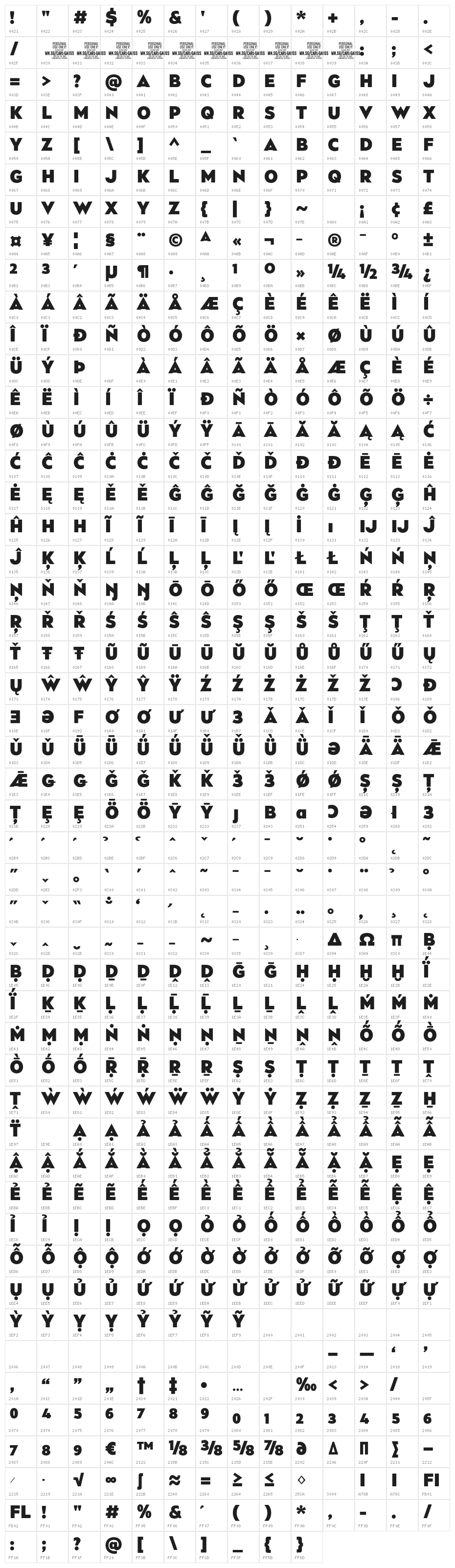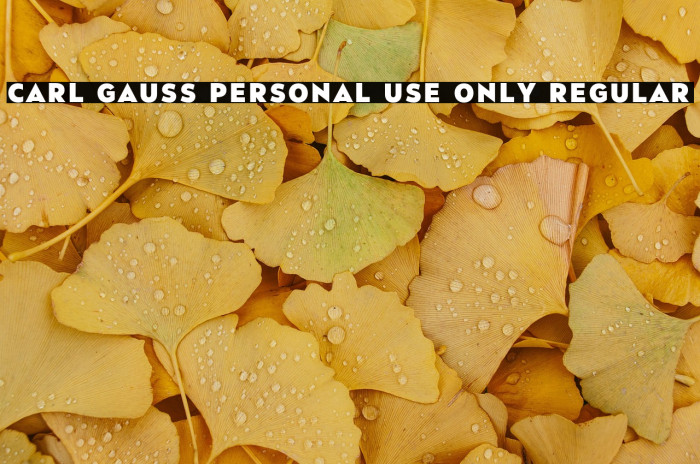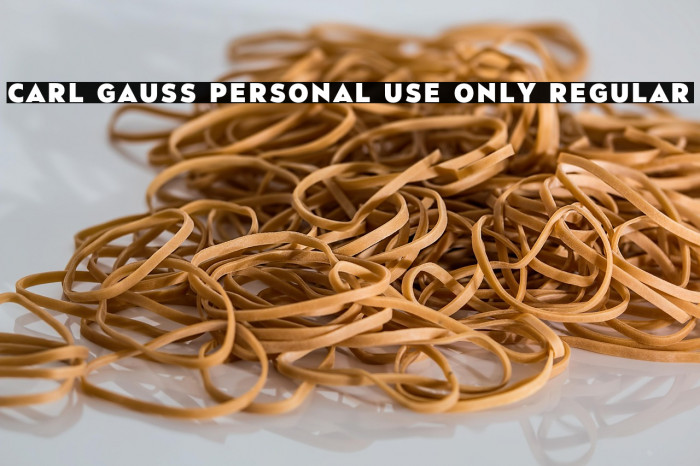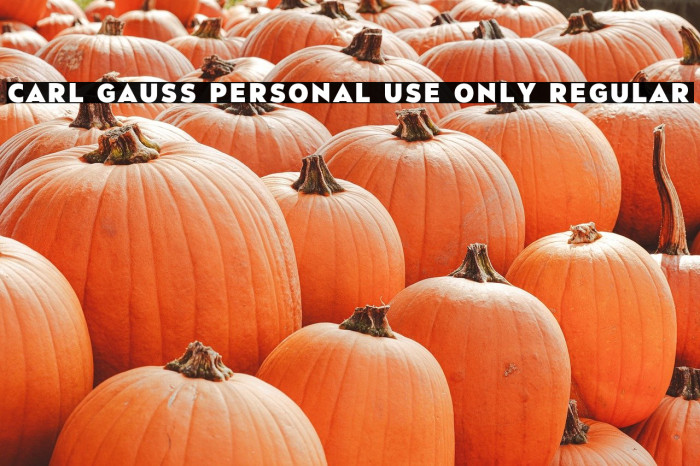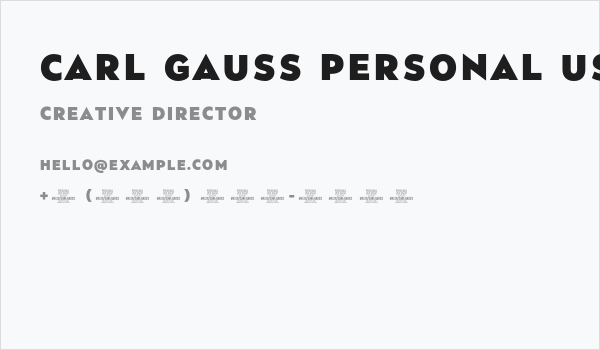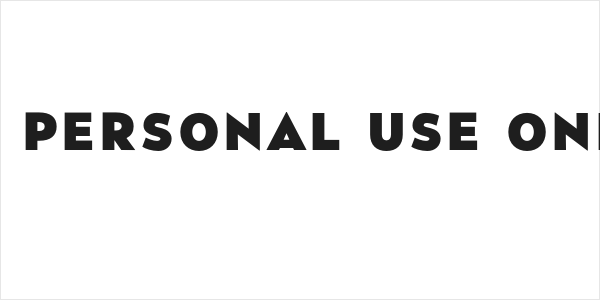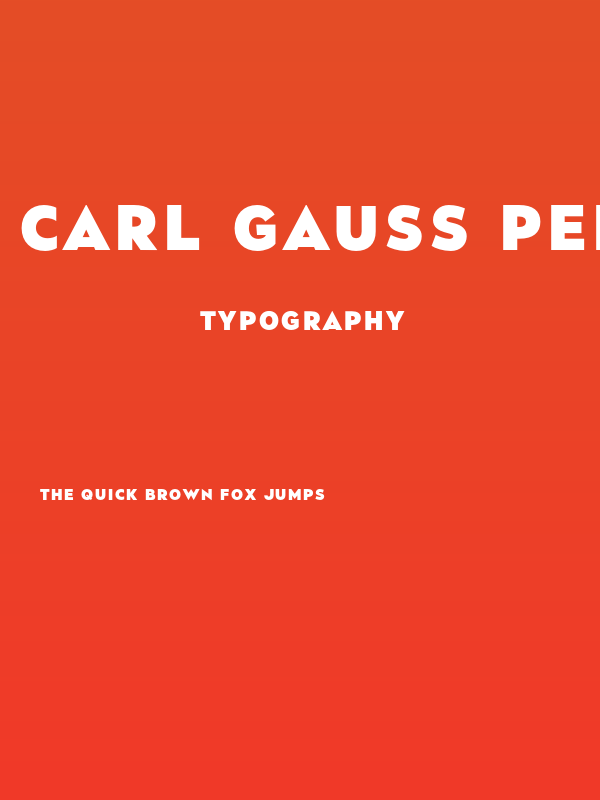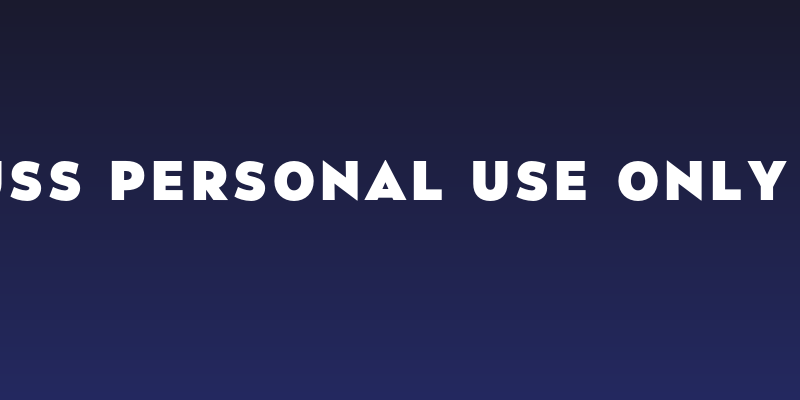
Carl Gauss PERSONAL USE ONLY Regular Font
Carl Gauss PERSONAL USE ONLY Regular Description
This font features bold, geometric letterforms with a strong presence. The characters are uniformly thick, creating a solid and impactful appearance. The uppercase letters are particularly striking, with sharp angles and clean lines that convey a sense of modernity and strength. The lowercase letters maintain the same boldness, ensuring consistency across the typeface. The numerals and special characters are equally robust, making them suitable for attention-grabbing designs. Overall, this font is designed to make a statement, with its bold weight and clear, legible forms.
| Proposed Projects | Ideal for headlines, posters, branding, and any design requiring a bold statement. |